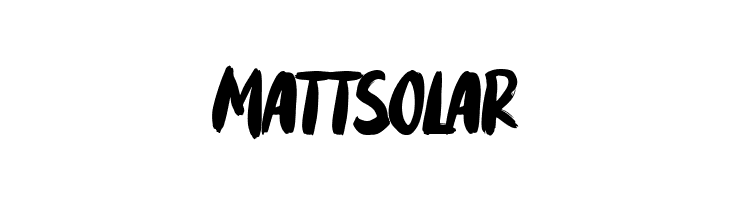
A bold, brush-style handwritten font with dynamic strokes.
A bold, dynamic brush script font with expressive strokes.
Elegant handwritten script font.
A playful, hand-drawn font with bold, rounded characters and a whimsical style.
A playful, hand-drawn font with a rope-like, whimsical style.
A playful, handwritten font with a casual and whimsical style.
A playful, informal handwritten font with whimsical curves and irregular strokes.
A playful, hand-drawn font with a whimsical and informal style.